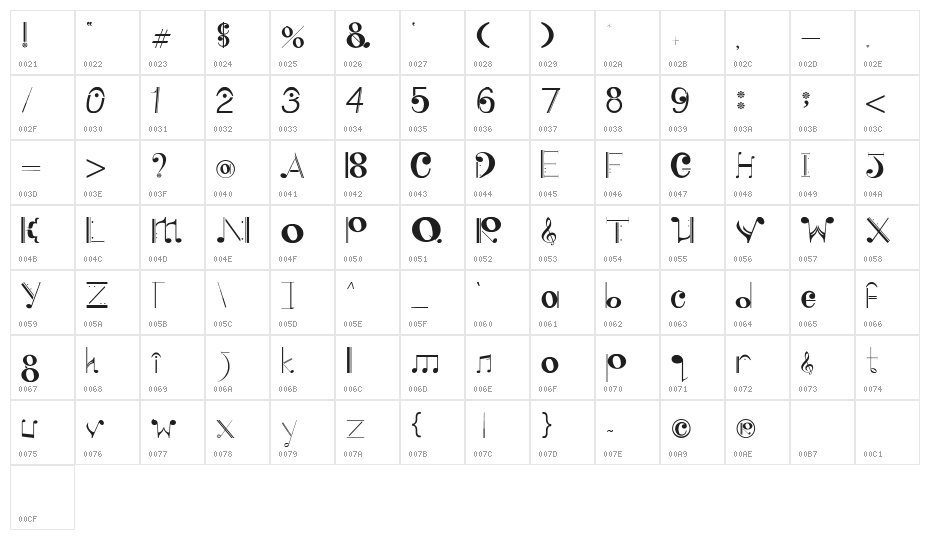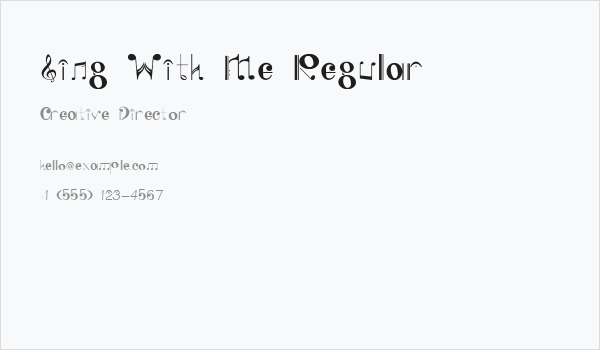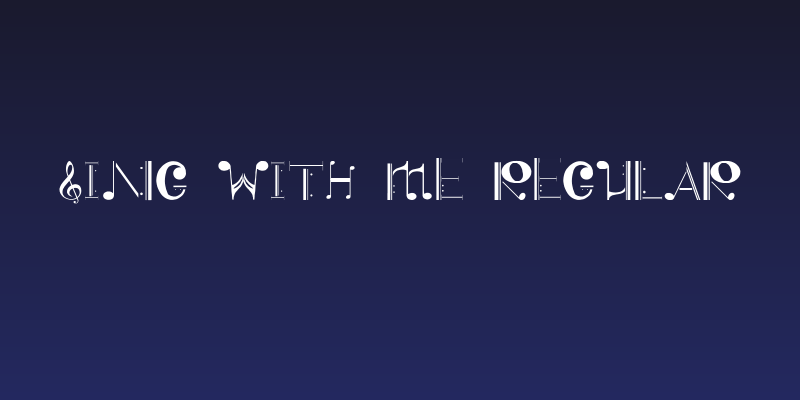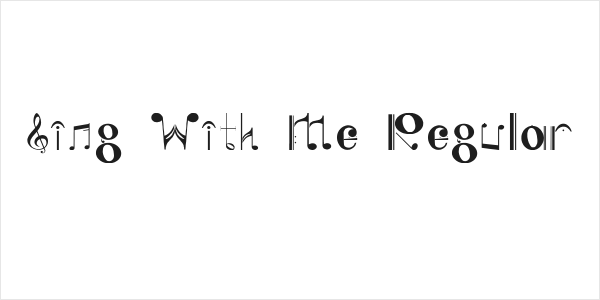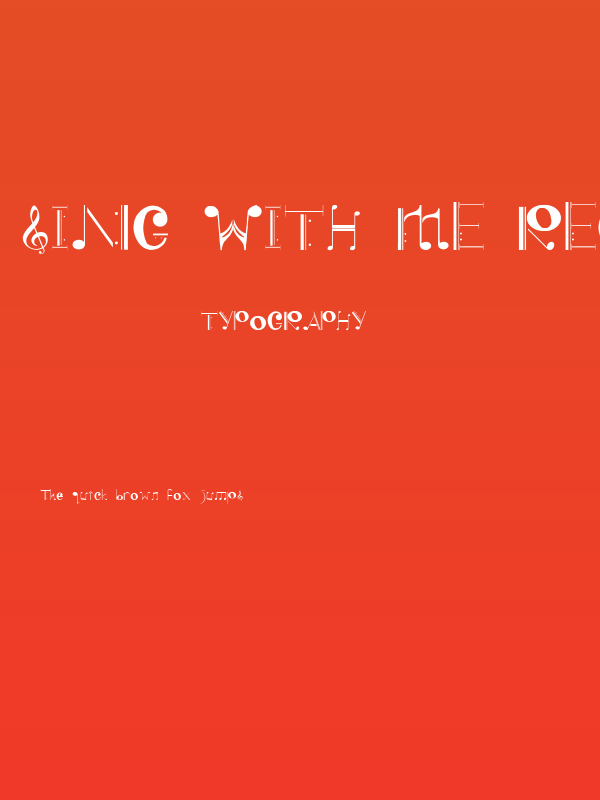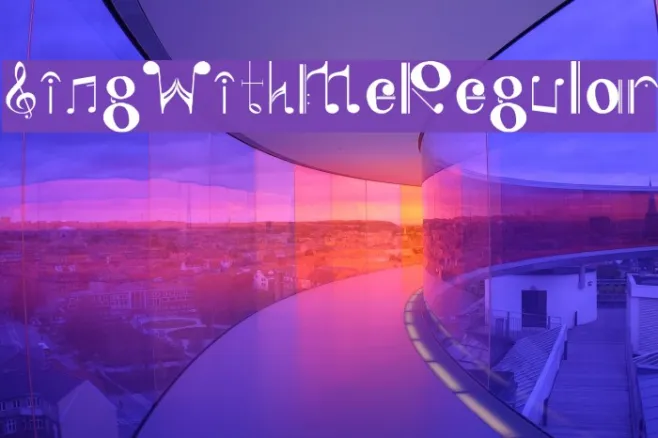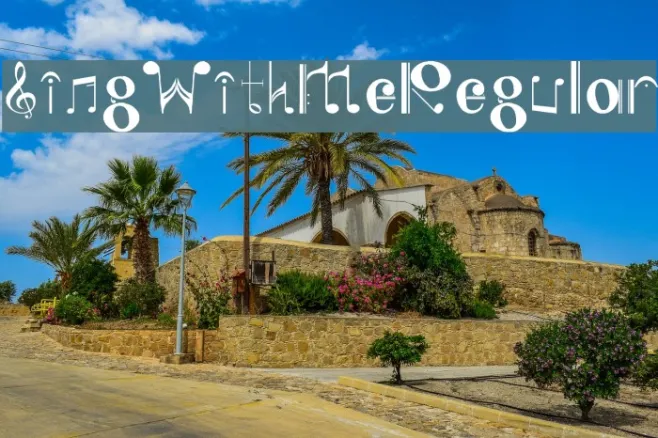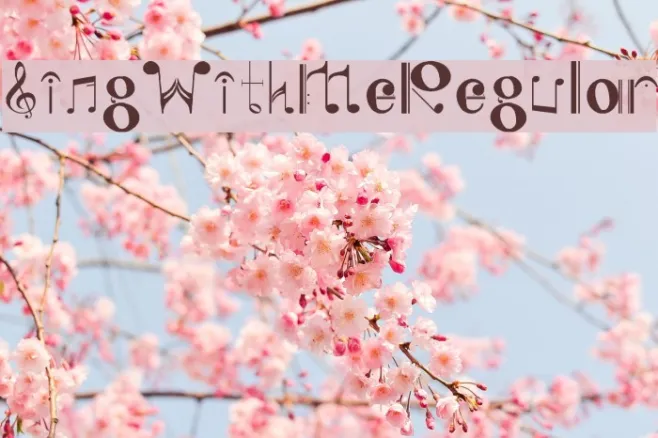
Sing With Me Regular Font
Sing With Me Regular Description
This font is a playful and artistic typeface that incorporates musical elements into its design. Each letter is crafted with unique musical symbols, such as notes and clefs, integrated into the characters. The uppercase letters are bold and striking, with varying thicknesses that create a dynamic visual rhythm. The lowercase letters maintain this musical theme, offering a whimsical yet sophisticated appearance. Numbers and special characters continue the motif, making the font ideal for creative projects. The overall design is both decorative and functional, capturing the essence of music in a visually engaging way.
| Proposed Projects | Ideal for music-related posters, album covers, event flyers, and creative branding projects. |